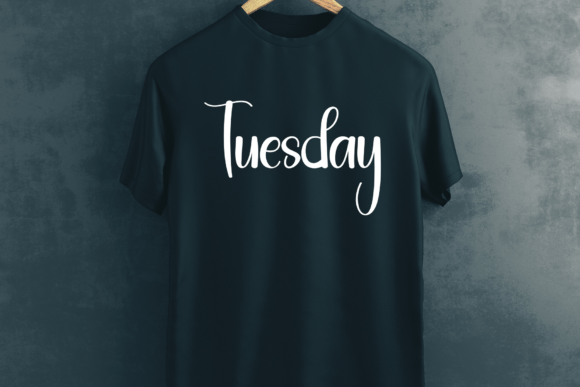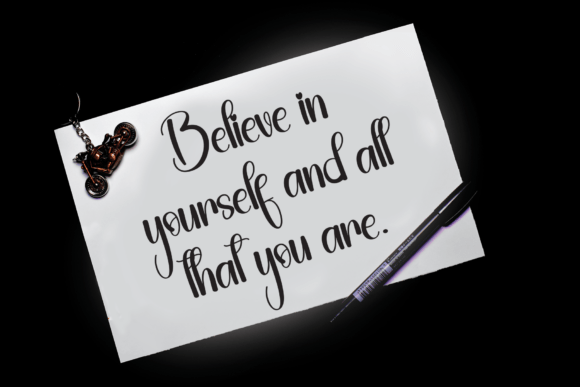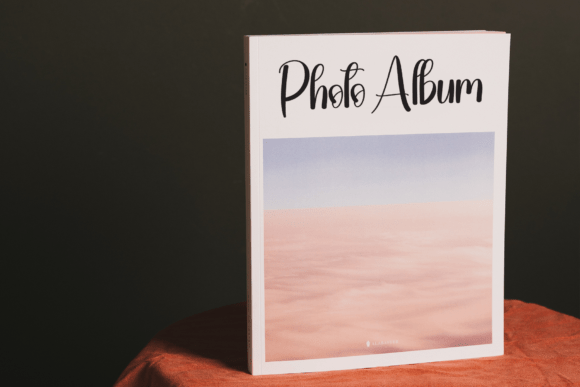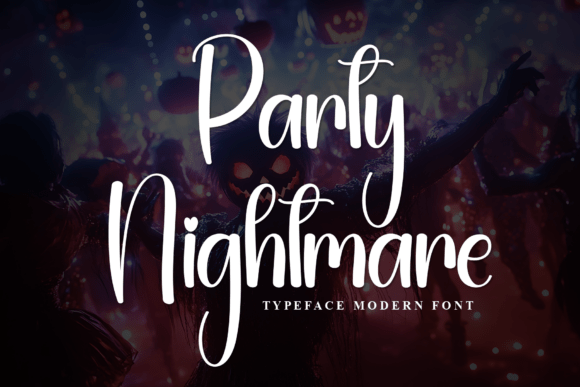
Introduction to Party Nightmare Font
Indulge in a spellbinding display font, exquisitely handcrafted to exemplify an unrivalled charisma.
Imbued with an exuberant spirit, this font presents an elegant touch suitable for wedding invitations, greeting cards, or any ingenious media longing for a dash of enchantment Its irresistible charm effortlessly bathes your artistic exertion and narratives in a captivating glow.